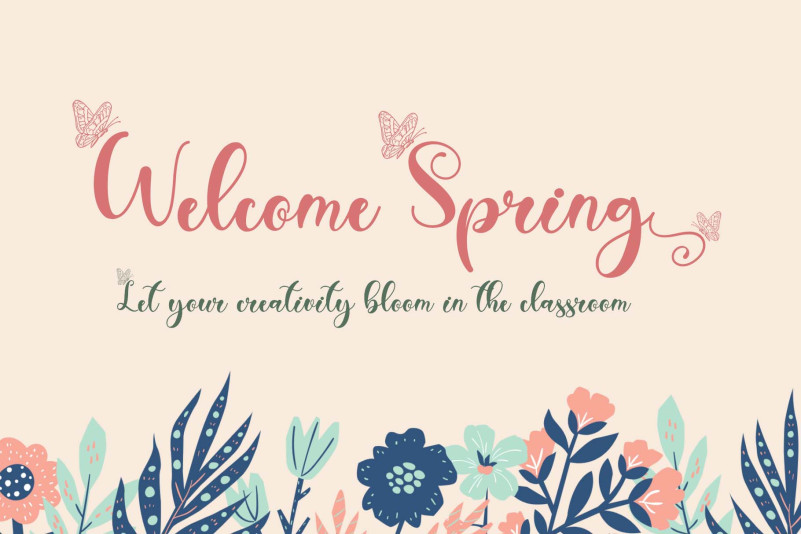
Spring Everyday Font
Spring Everyday Calligraphy Font is a modern handwritten font. This font is very pretty with its butterfly decoration and is perfect for Valentine’s Day, weddings, spring, summer, holidays, engagements, and more. Equipped with uppercase, lowercase, swashes, titling, alternates, numerals, punctuations, and multilingual support.